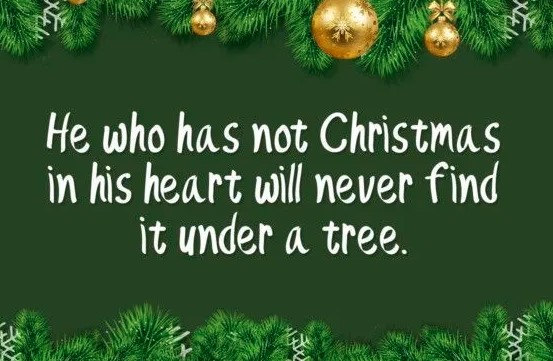
Sweet Christmas Font is a charming retro-style font available for download on our website. This handwritten typeface is ideal for creating adorable projects, all for free! The font mimics natural handwriting done with a brushstroke, making it versatile for various design purposes. Discover this unique font today and add a touch of nostalgia to your creations! Start designing with Sweet Christmas Font now for a vintage flair like no other.
This is an elegant and smart textured typeface that can easily be downloaded and installed on Windows, Mac, or Linux also. You can use the font with the combination of helena font to make more stylish designs.